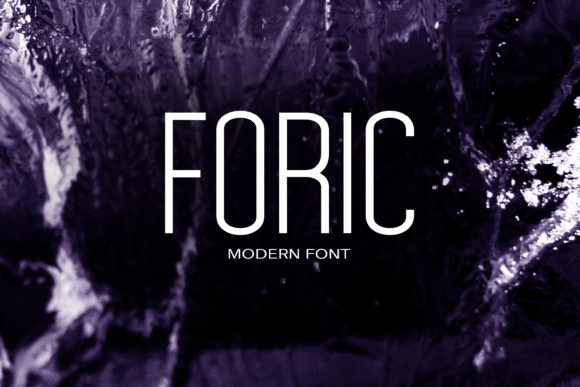
Discover the Unique Style of Foric Font: A Cool and Smart Sans Serif Choice
Are you tired of using the same old fonts in your designs? Look no further than Foric Font, a cool and smart sans serif font that is sure to inspire your creativity. With its unique style and versatility, Foric Font is perfect for designers and crafters looking to add a touch of sophistication to their work.
What is Foric Font?
Foric Font is a modern sans serif font that boasts a distinctive style that sets it apart from other fonts. Its clean lines, geometric shapes, and carefully crafted letterforms make it a standout choice for any design project. Whether you’re working on a logo, brochure, or website, Foric Font is sure to make a lasting impression.
Key Features of Foric Font
- Unique Style: Foric Font’s unique style is characterized by its geometric shapes and clean lines, making it perfect for modern designs.
- Versatility: Foric Font is highly versatile and can be used for a wide range of design projects, from logos and brochures to websites and more.
- Readability: Foric Font is highly readable, even at small sizes, making it perfect for body text and captions.
- Customizability: Foric Font comes with a range of weights and styles, allowing you to customize it to suit your design needs.
Why Choose Foric Font?
So why choose Foric Font over other fonts? Here are just a few reasons:
- Stand out from the crowd: Foric Font’s unique style ensures that your designs will stand out from the crowd and grab attention.
- Professional look: Foric Font’s clean lines and geometric shapes give it a professional look that’s perfect for businesses and brands.
- Easy to use: Foric Font is highly readable and easy to use, making it perfect for designers of all skill levels.
How to Use Foric Font in Your Designs
Using Foric Font in your designs is easy. Here are a few tips to get you started:
- Pair it with other fonts: Foric Font pairs well with other sans serif fonts, as well as serif fonts for a striking contrast.
- Experiment with weights and styles: Foric Font comes in a range of weights and styles, so don’t be afraid to experiment to find the perfect look for your design.
- Use it for headlines and body text: Foric Font is highly readable, making it perfect for both headlines and body text.
Inspiration from Foric Font
Foric Font’s unique style is sure to inspire your creativity. Here are a few ways to get inspired:
- Look to modern design trends: Foric Font’s geometric shapes and clean lines make it perfect for modern designs.
- Experiment with different colors: Foric Font looks great in a range of colors, so don’t be afraid to experiment to find the perfect look for your design.
- Try it out in different contexts: Foric Font is highly versatile, so try it out in different contexts to see how it looks.
In conclusion, Foric Font is a cool and smart sans serif font that is sure to inspire your creativity. With its unique style, versatility, and readability, it’s perfect for designers and crafters looking to add a touch of sophistication to their work. So why not give Foric Font a try and see how it can elevate your designs?